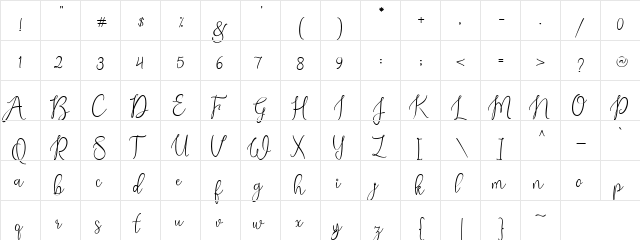
Alexandra Demo Regular
| Foundry | Kurniadi Saputra |
| Designer | Kurniadi Saputra |
Design Context for Alexandra Demo Typeface
Alexandra Demo is a composed and adaptable typeface that performs quietly and consistently across a wide range of design contexts.